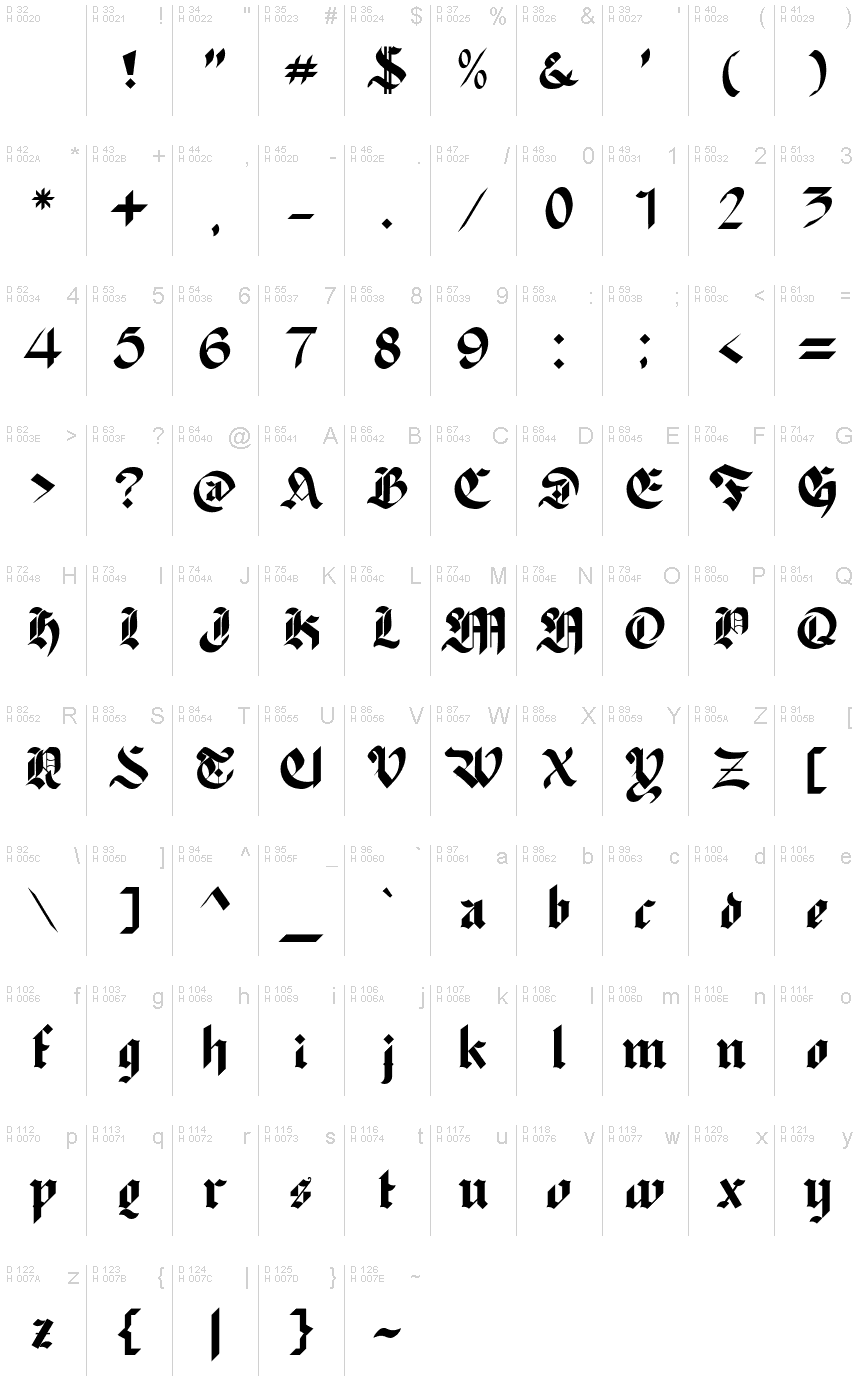
Presentazione e campione visivo del carattere Redro Regular
Mappa dei caratteri di Redro Regular
Glifi del carattere Redro Regular — Latino di base, pagina 1
Redro